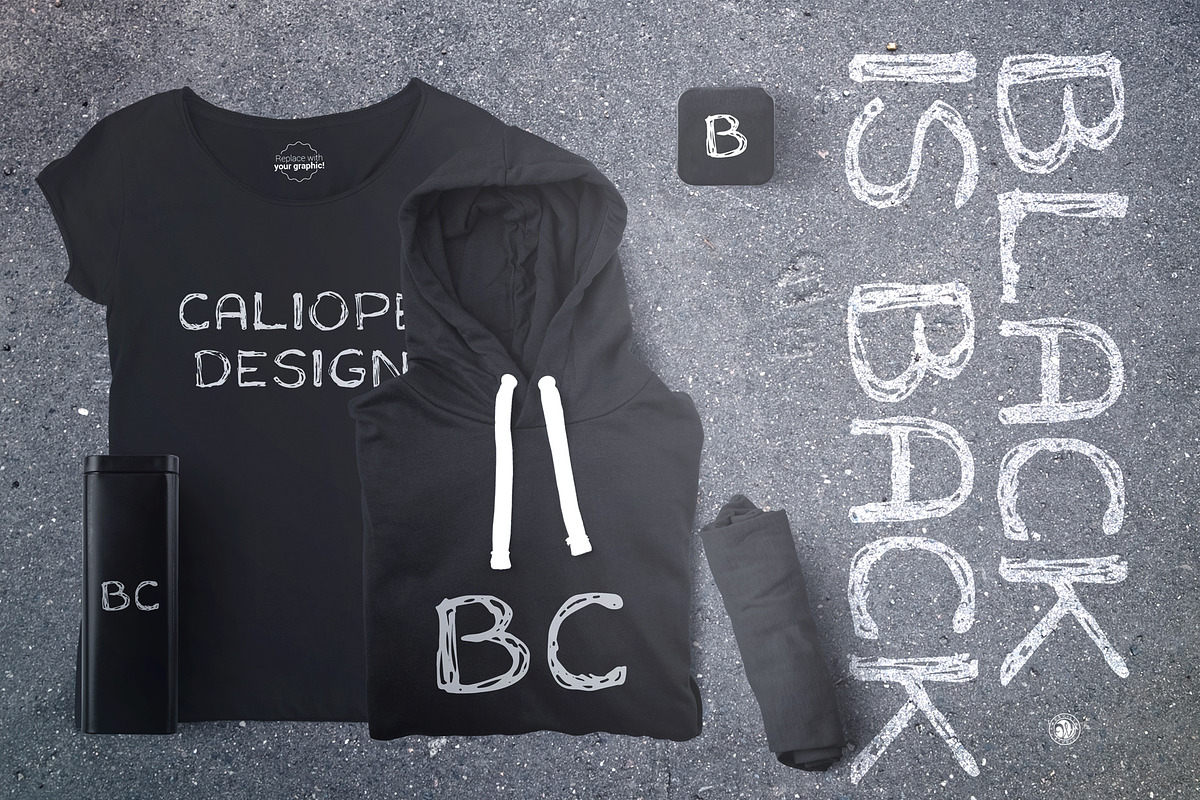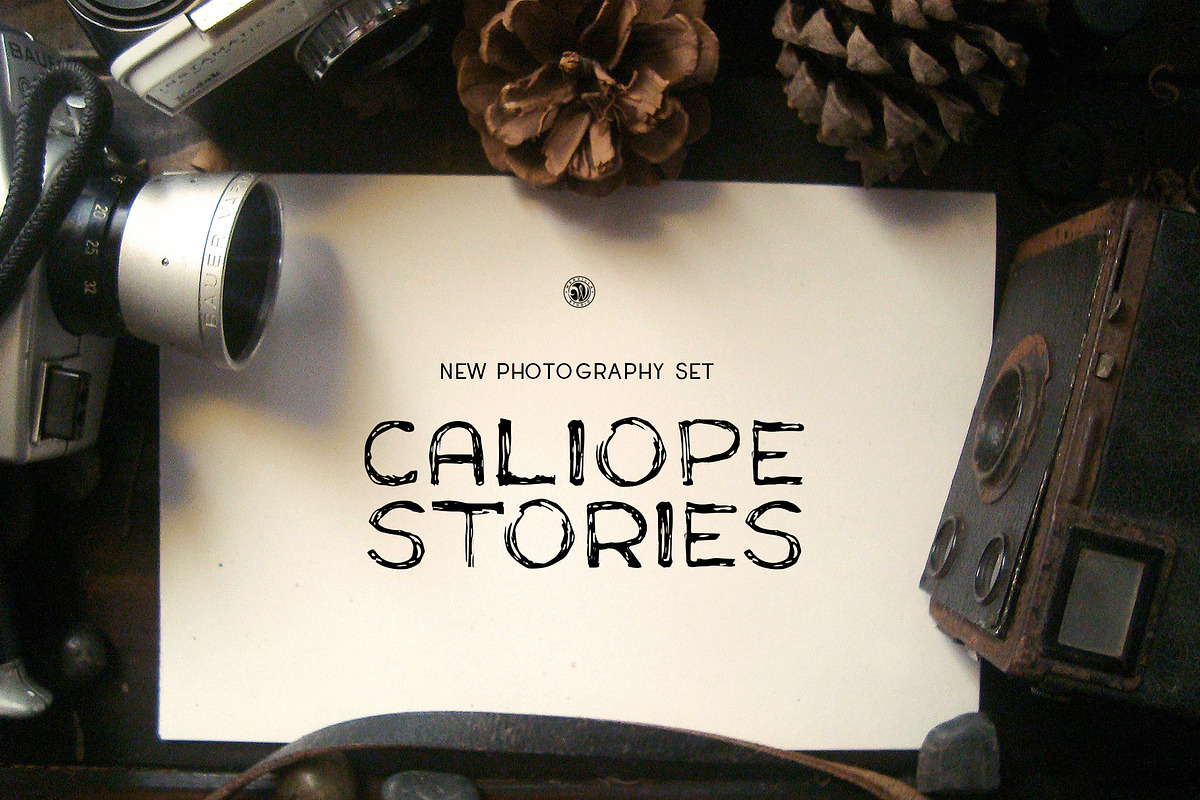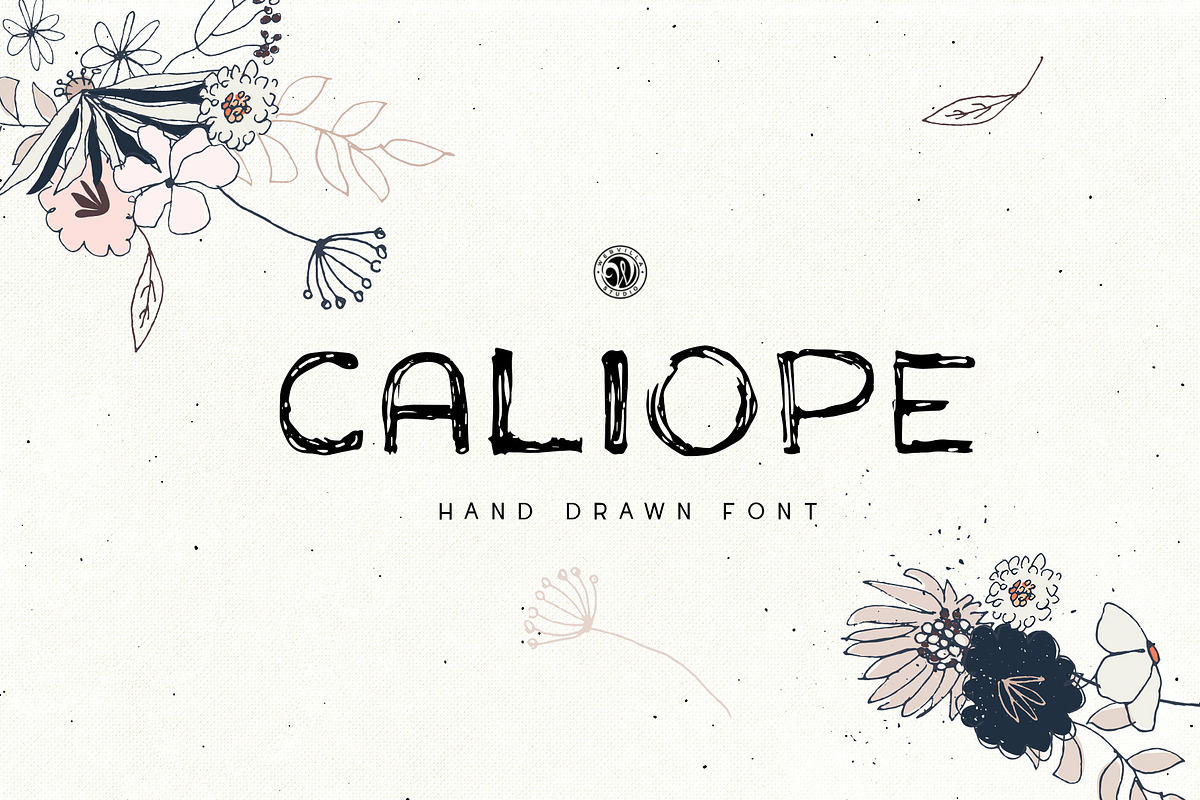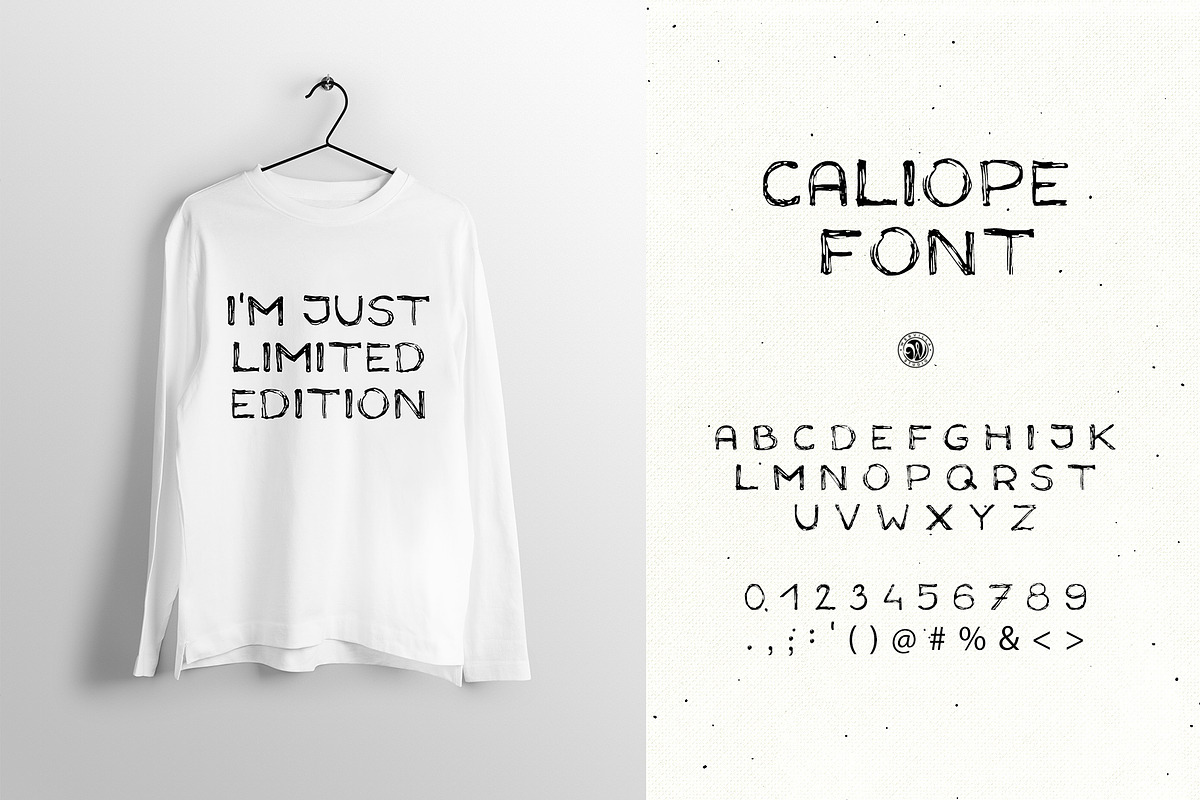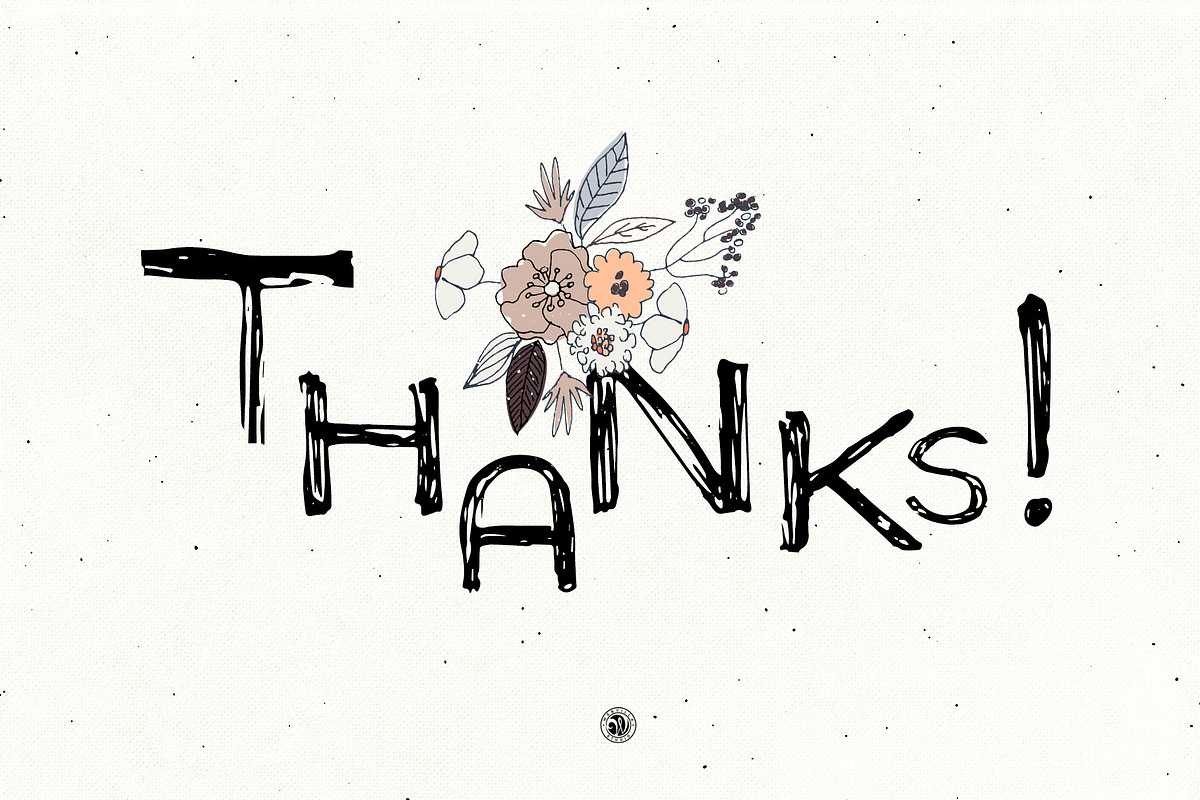
Caliope Font
Caliope font - hand lettering display font. Ideal for invitations, logos, branding, blogs, handmade craft items, scrap booking, printed paper items and more.
all caps font, numbers, punctuation
Caliope Font by Webvilla Studio fits naturally into Branding, posters, packaging, typography.